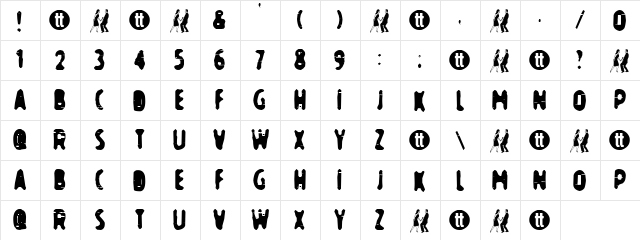
Cynic Regular
Design Context for Cynic Typeface
Cynic is a composed and adaptable typeface that performs quietly and consistently across a wide range of design contexts.
Pro Tip: Use Cynic in both headline and body roles to test its range before committing to a single application.